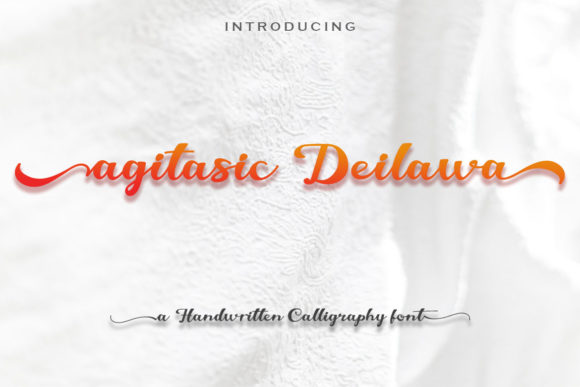
Presenting Agitasic Deilawa: A Script Font Symphony for Your Resume Design
In the realm of professional presentations, your resume holds the key to unlocking opportunities. It's the bridge that connects your aspirations with potential employers, and its design plays a crucial role in making a lasting impression. Allow us to introduce Agitasic Deilawa, a script font that will transform your resume into a masterpiece of elegance and sophistication.
Agitasic Deilawa captures the essence of refined penmanship, with its delicate strokes and graceful curves. Each character dances across the page, exuding a sense of artistry and attention to detail. Its well-balanced design ensures harmony and visual appeal, making it the perfect choice for resumes that demand attention.
With Agitasic Deilawa, you'll embark on a journey of self-expression. Its flowing lines and elegant letterforms will add a touch of personality to your resume, setting you apart from the crowd. Whether you seek a touch of classic charm or a dash of modern flair, Agitasic Deilawa will effortlessly adapt to your unique style.
Beyond its aesthetic allure, Agitasic Deilawa is a font of unparalleled practicality. PUA encoding grants you effortless access to a wealth of glyphs and swashes, empowering you to unleash your creativity. Craft captivating headers that command attention, highlight your skills with stylish flair, and let your personality shine through every word.
Elevate your resume design to new heights with Agitasic Deilawa. Its timeless beauty and versatility will leave a lasting impression on potential employers, propelling you towards the career opportunities you seek. Embrace the art of polished presentation and watch as Agitasic Deilawa transforms your resume into an unforgettable masterpiece.